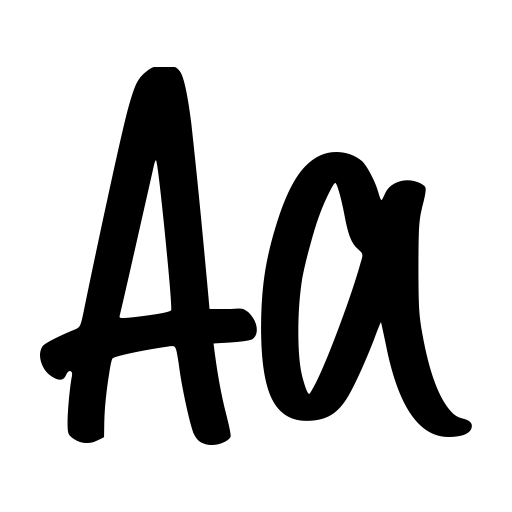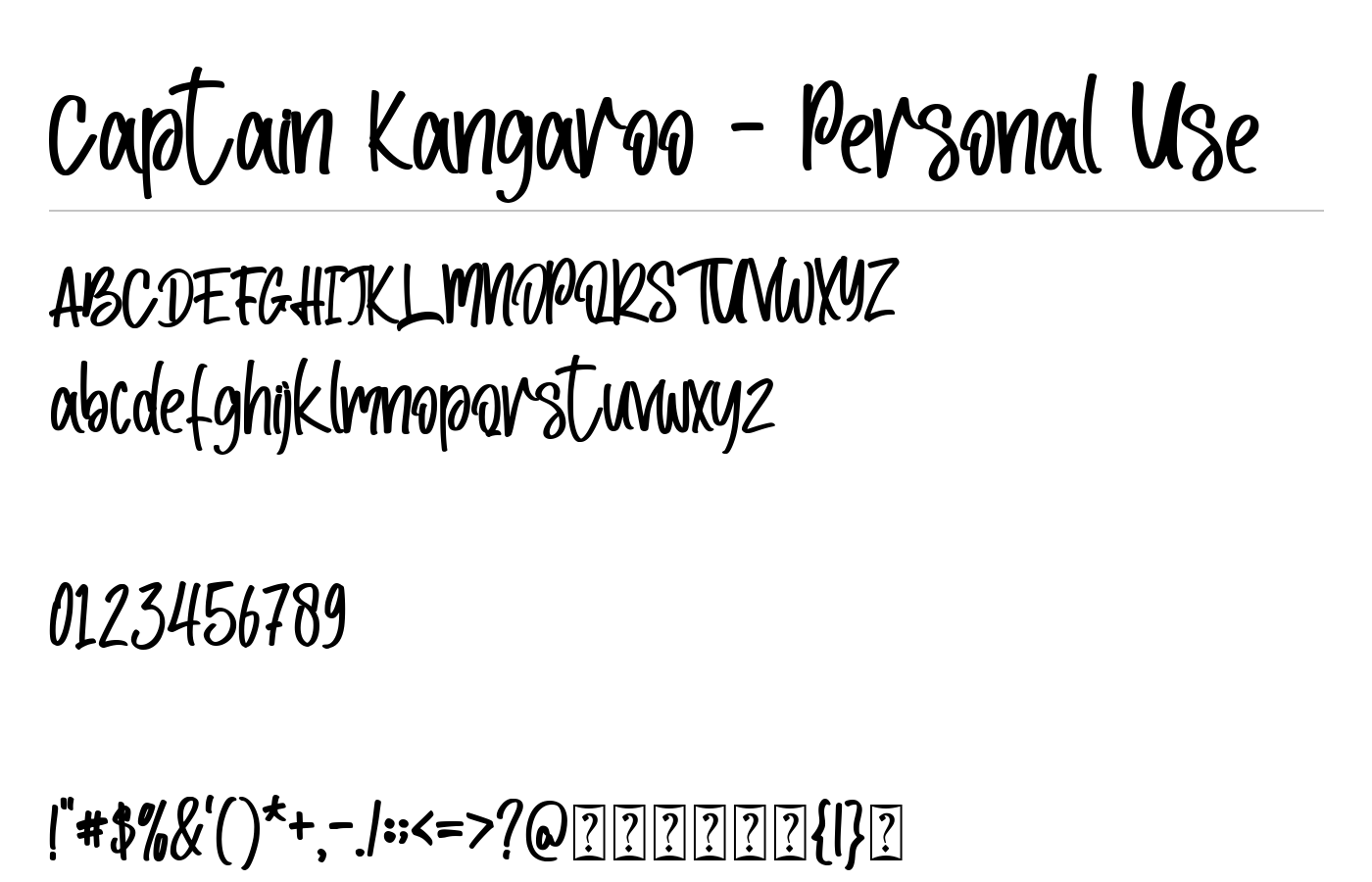
Captain Kangaroo is a playful and casual handwritten script font with a lively, brush-like style and a slightly uneven, organic feel. Its tall x-height and narrow letterforms give it a friendly and approachable personality, perfect for informal projects, kids’ designs, and creative branding. This font works well for headlines, logos, and packaging where a fun, personal touch is desired.
Captain Kangaroo - Personal Use Font
About Captain Kangaroo - Personal Use Font
| Font family | Captain Kangaroo - Personal Use Font |
| Designer | Letterara |